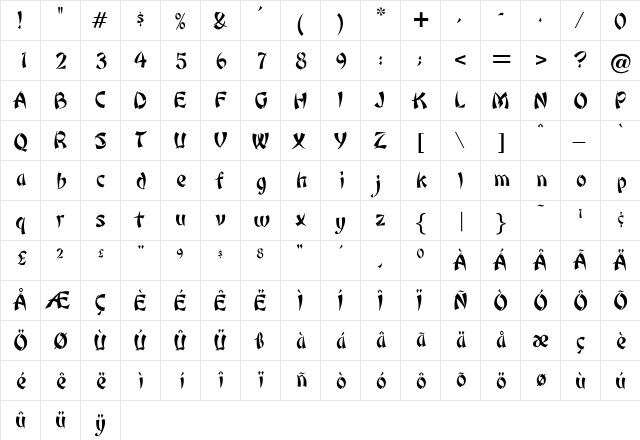
OPTIPeking Regular Font Preview
OPTIPeking Regular
OPTIPeking Regular Font Details
Design Context for OPTIPeking Typeface
OPTIPeking is a composed and adaptable typeface that performs quietly and consistently across a wide range of design contexts.